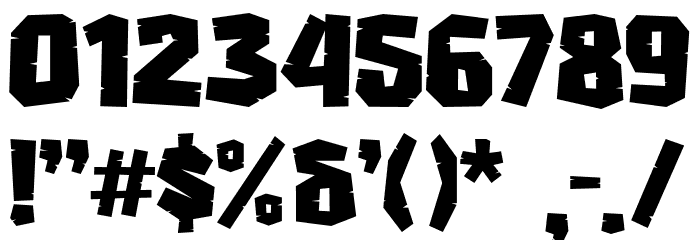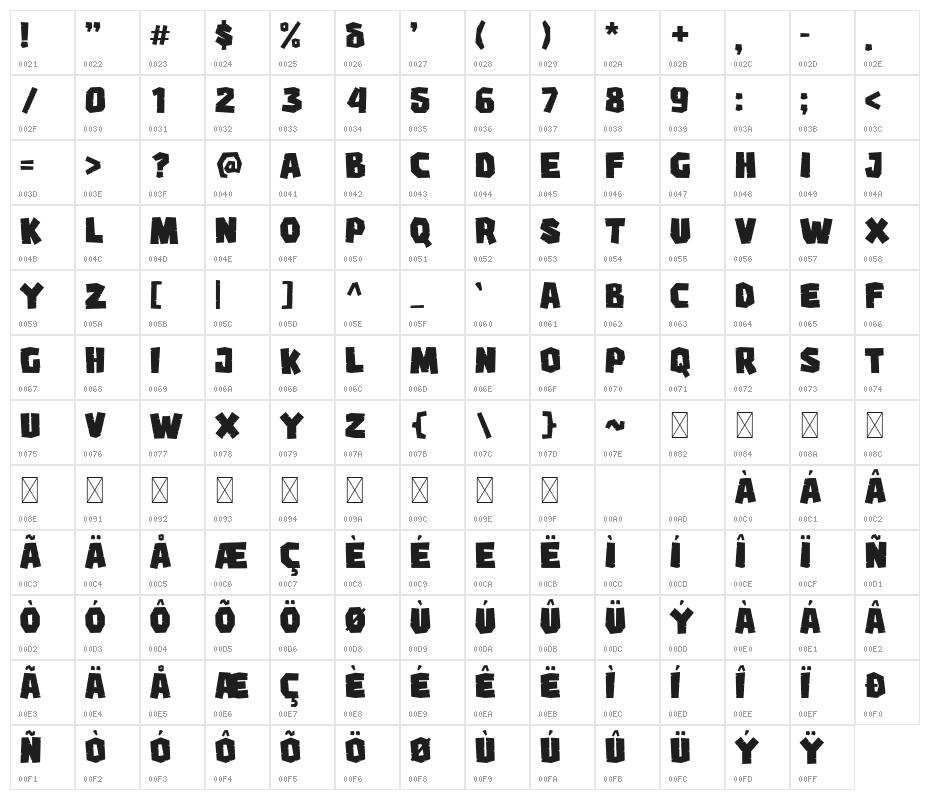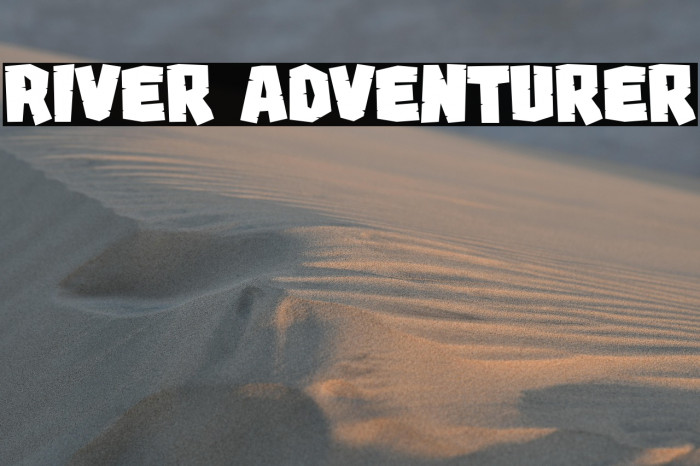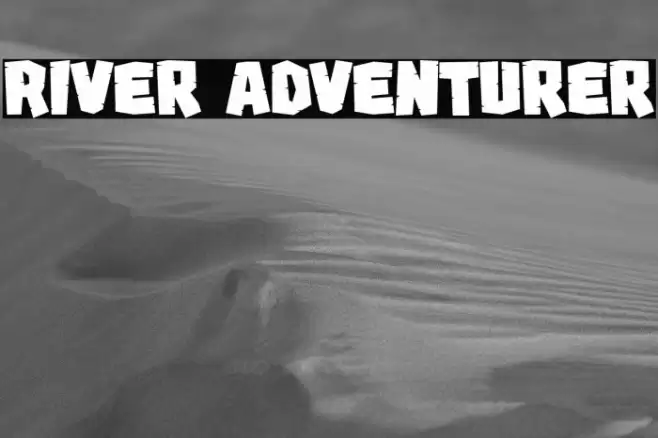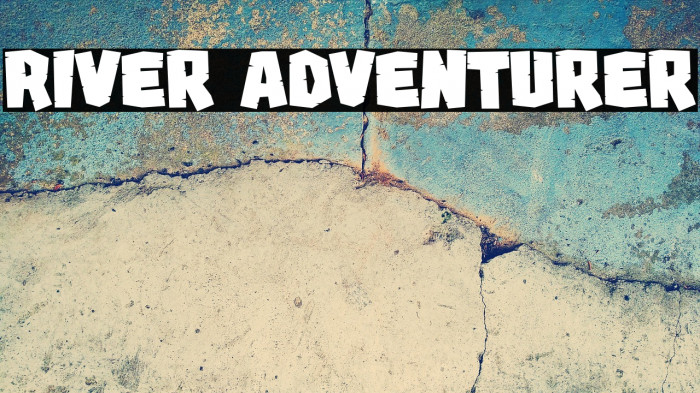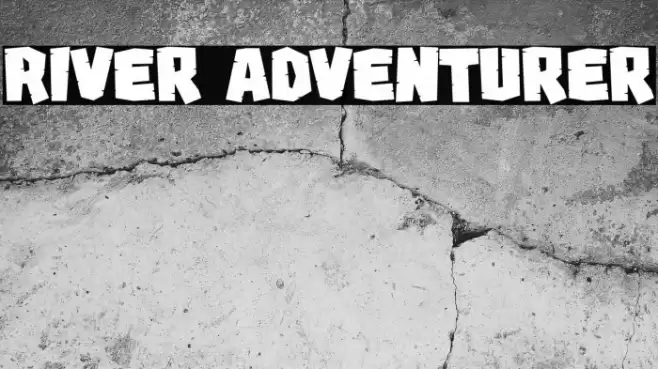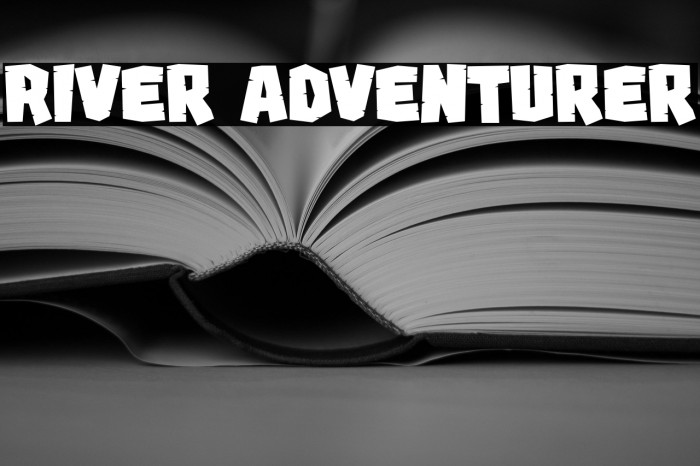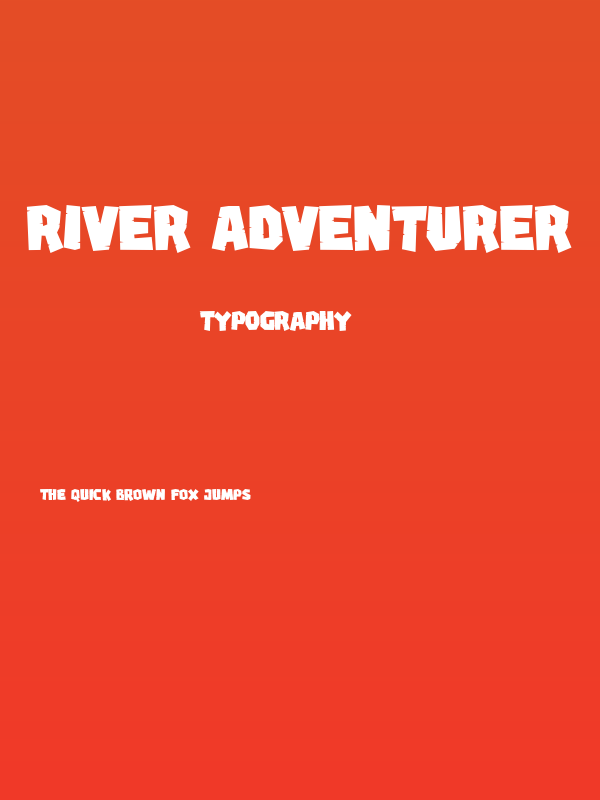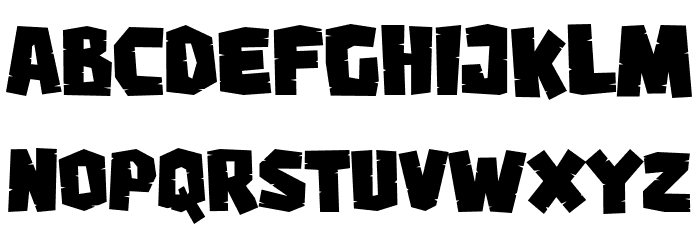
River Adventurer Font
River Adventurer Description
This font features a bold and adventurous style with a rugged, angular design. The characters are heavily stylized, with sharp edges and a blocky appearance that suggests movement and energy. The uppercase and lowercase letters maintain a consistent theme, with each character exhibiting a unique, jagged form. The numbers and special characters follow the same aesthetic, ensuring a cohesive look across all glyphs. This font is perfect for projects that require a strong, impactful visual presence, such as posters, banners, and adventure-themed branding.
| Proposed Projects | Ideal for adventure-themed branding, posters, banners, and dynamic graphic design projects. |